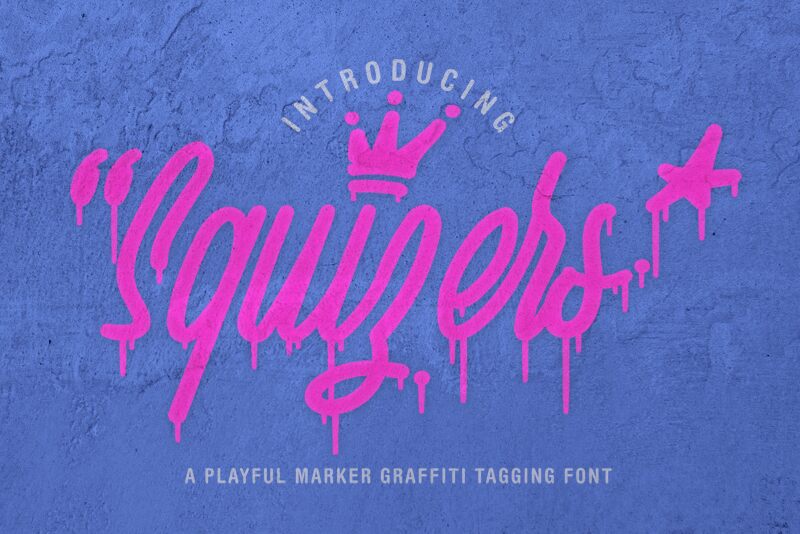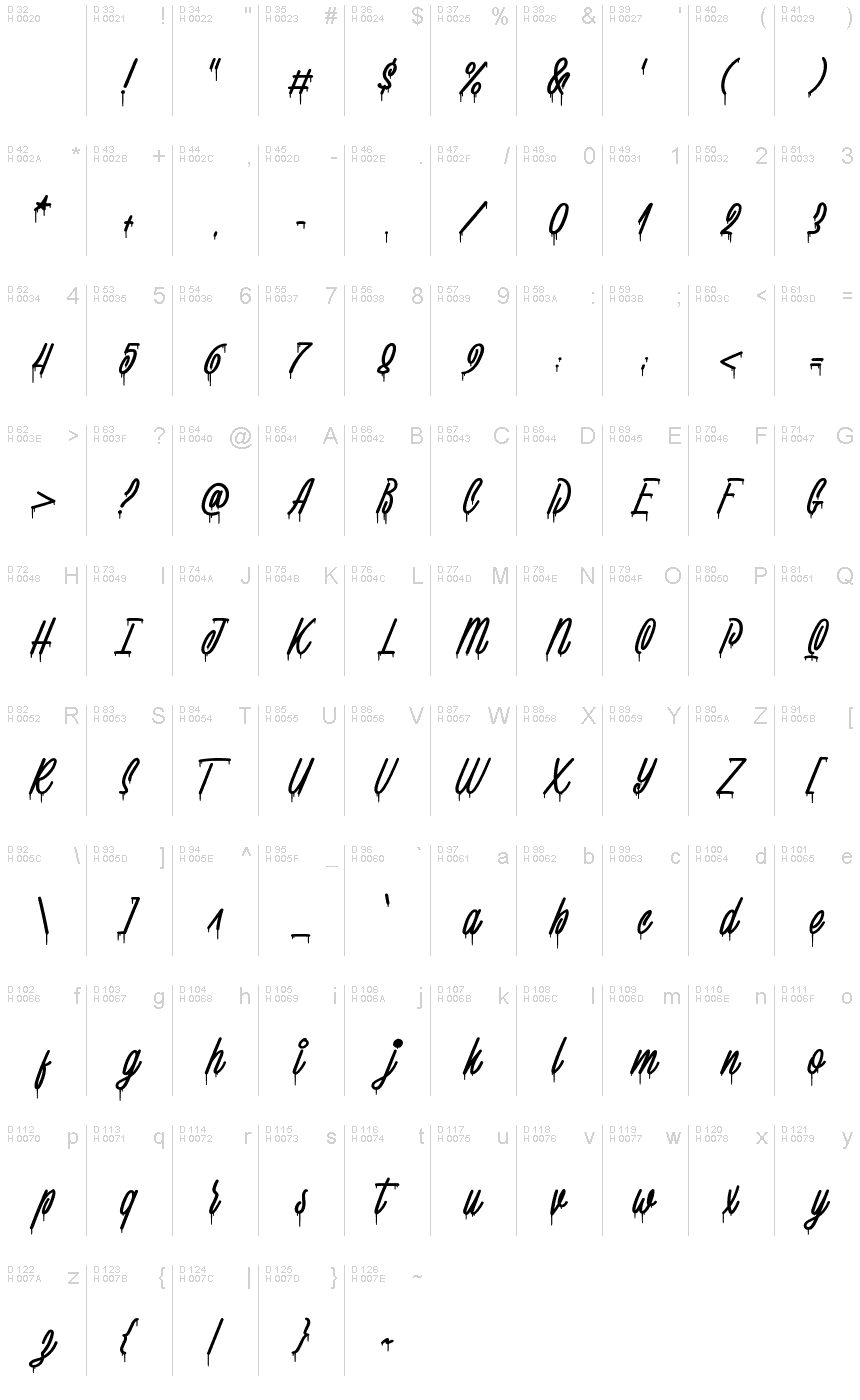
Squizers is playful graffiti marker font display. Comes with 2 styles font: regular and marker type with many opentype feature, upper and lower case standard character, punctuation and numerals, multilingual characters, ligatures, stylistic alternates, beginning and ending, and many more glyph to make your design look real graffiti tagging.